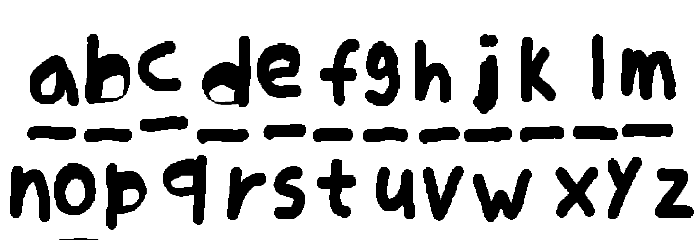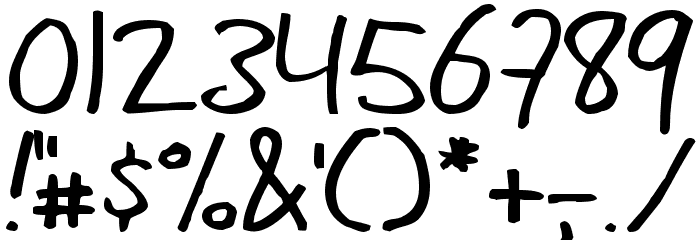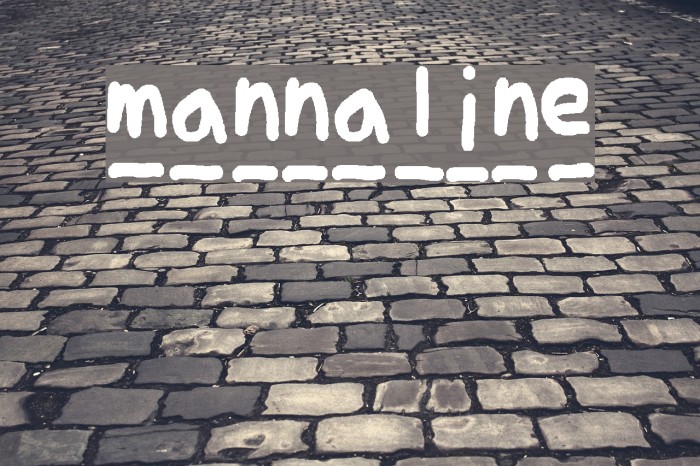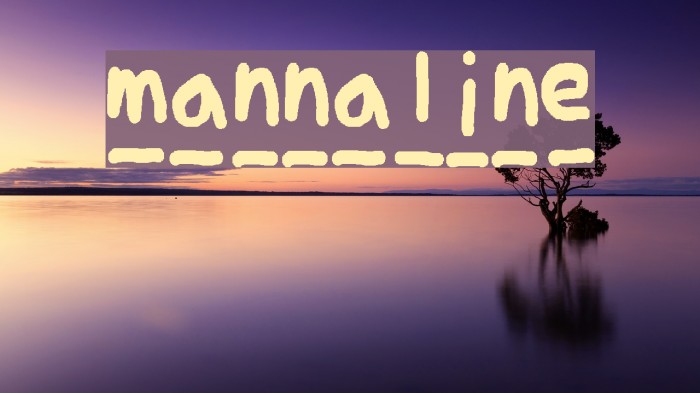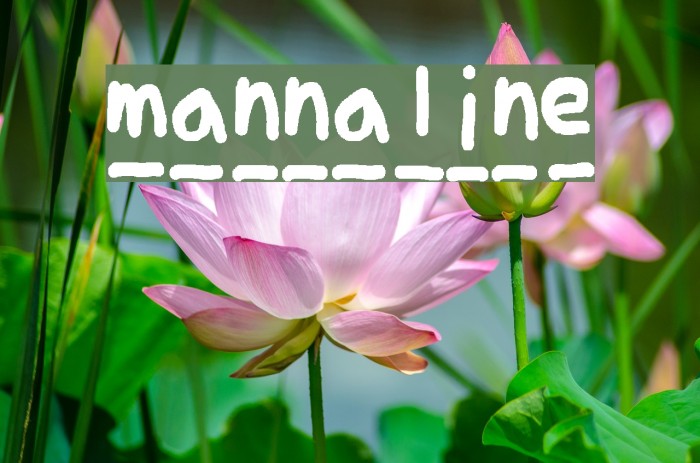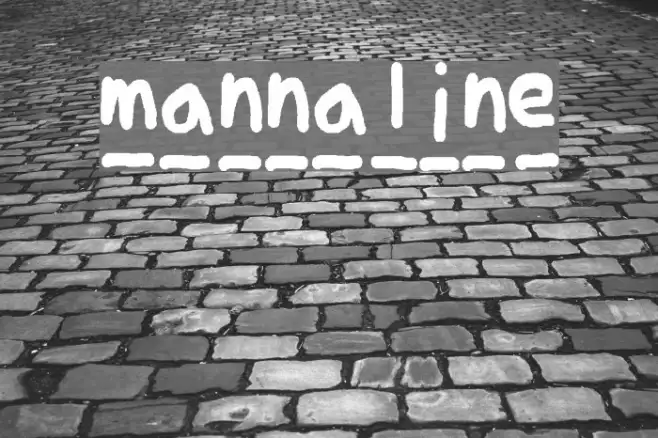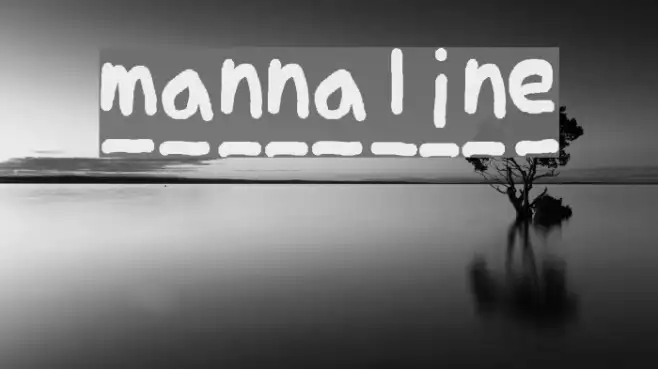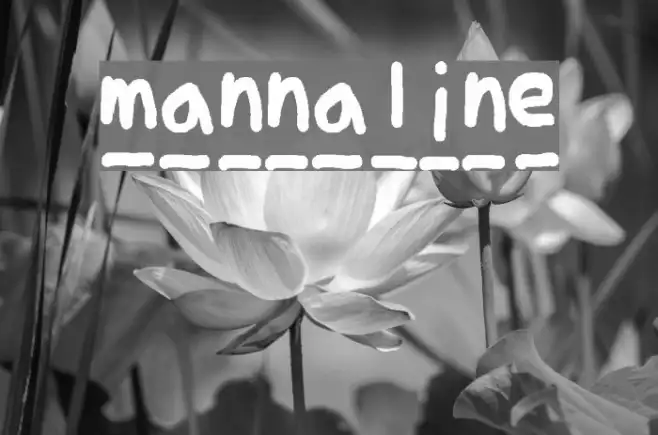
mannaline Font
This font features a playful and informal handwritten style, characterized by its bold and slightly irregular strokes. The letters have a casual, friendly appearance, with rounded edges and a consistent thickness throughout. The uppercase and lowercase letters maintain a uniform height, contributing to a cohesive look. Numbers and special characters follow the same playful design, making them easily recognizable and visually appealing. The overall style is reminiscent of hand-drawn lettering, perfect for projects that require a personal touch.
A playful, handwritten font with bold, rounded strokes.
- Proposed Projects: Ideal for children's books, greeting cards, casual branding, and playful posters.
- Overall Style: Casual, Playful
- Use Case: Headlines, Informal Text, Creative Projects